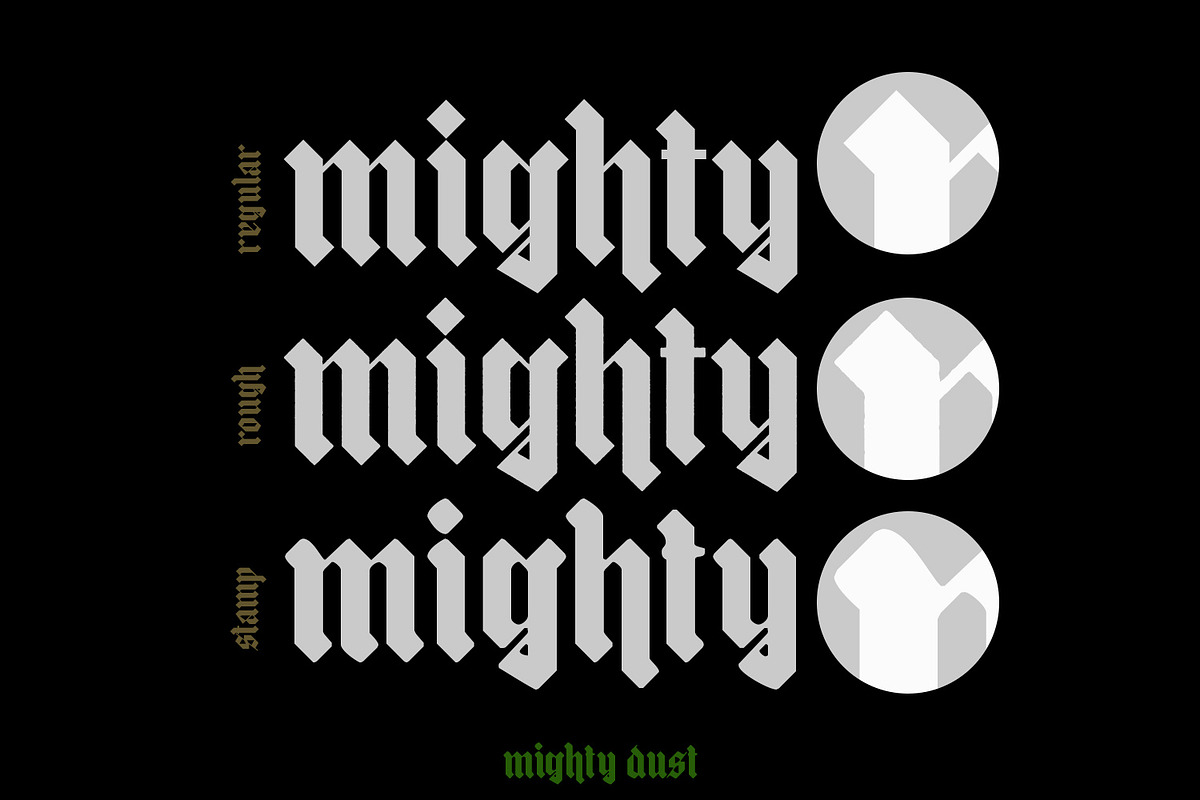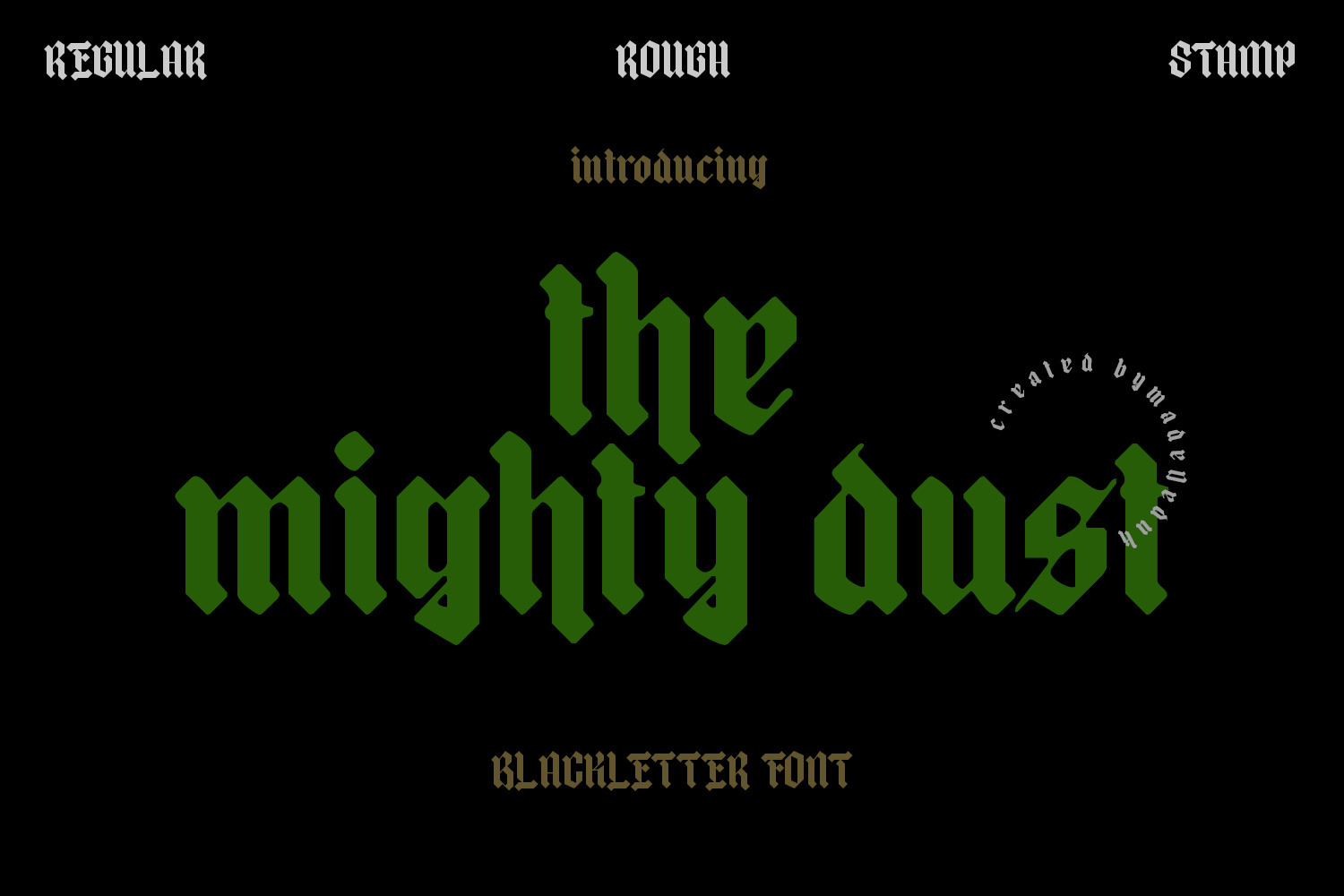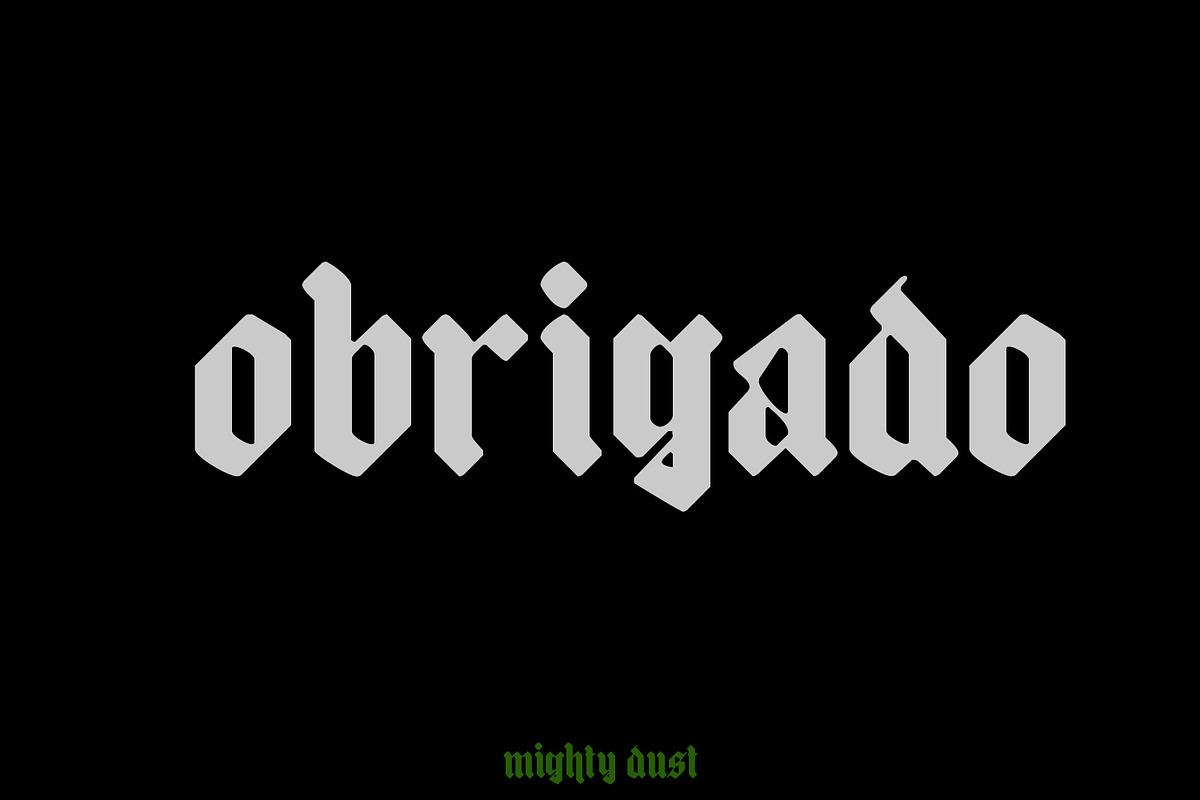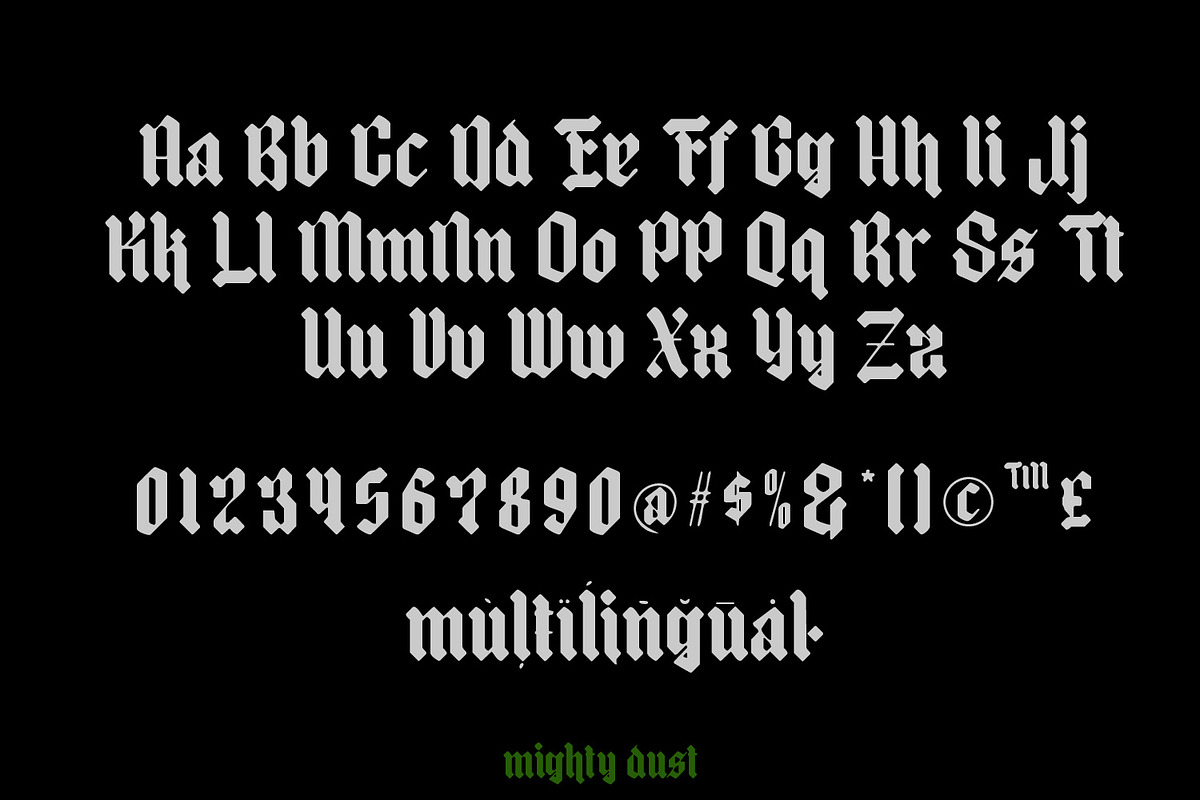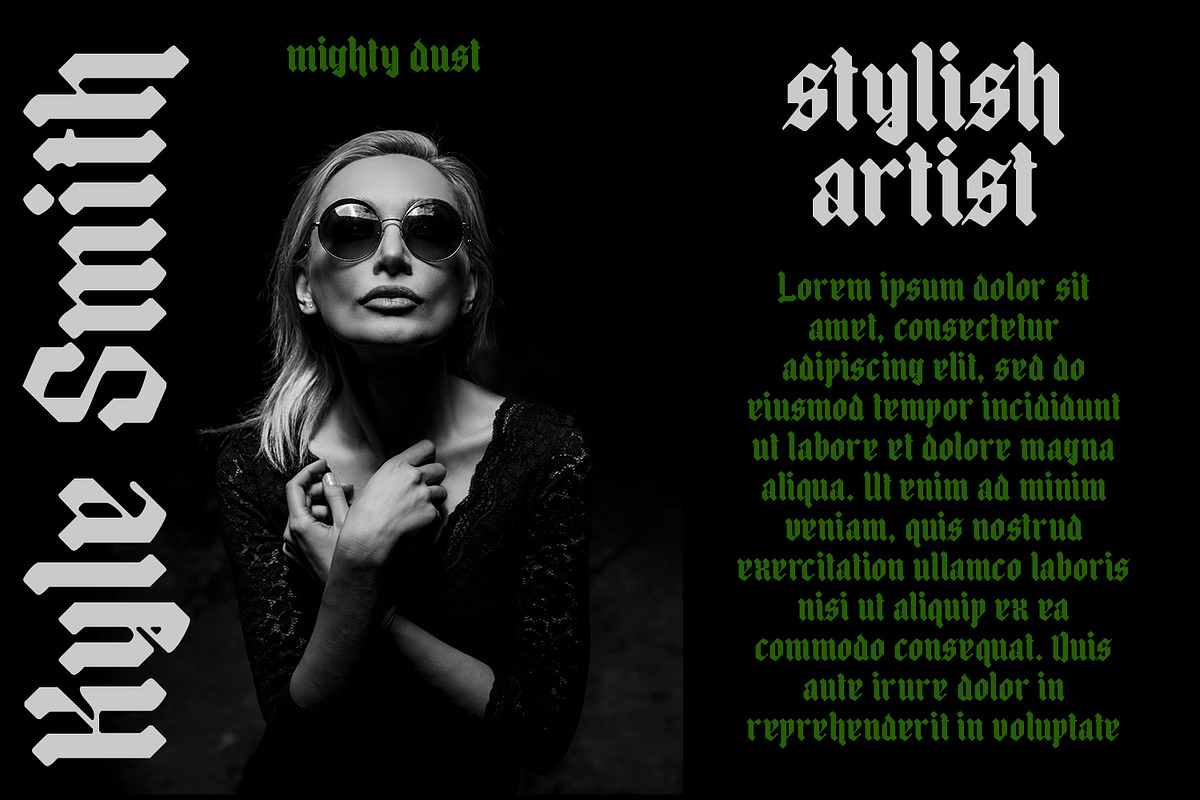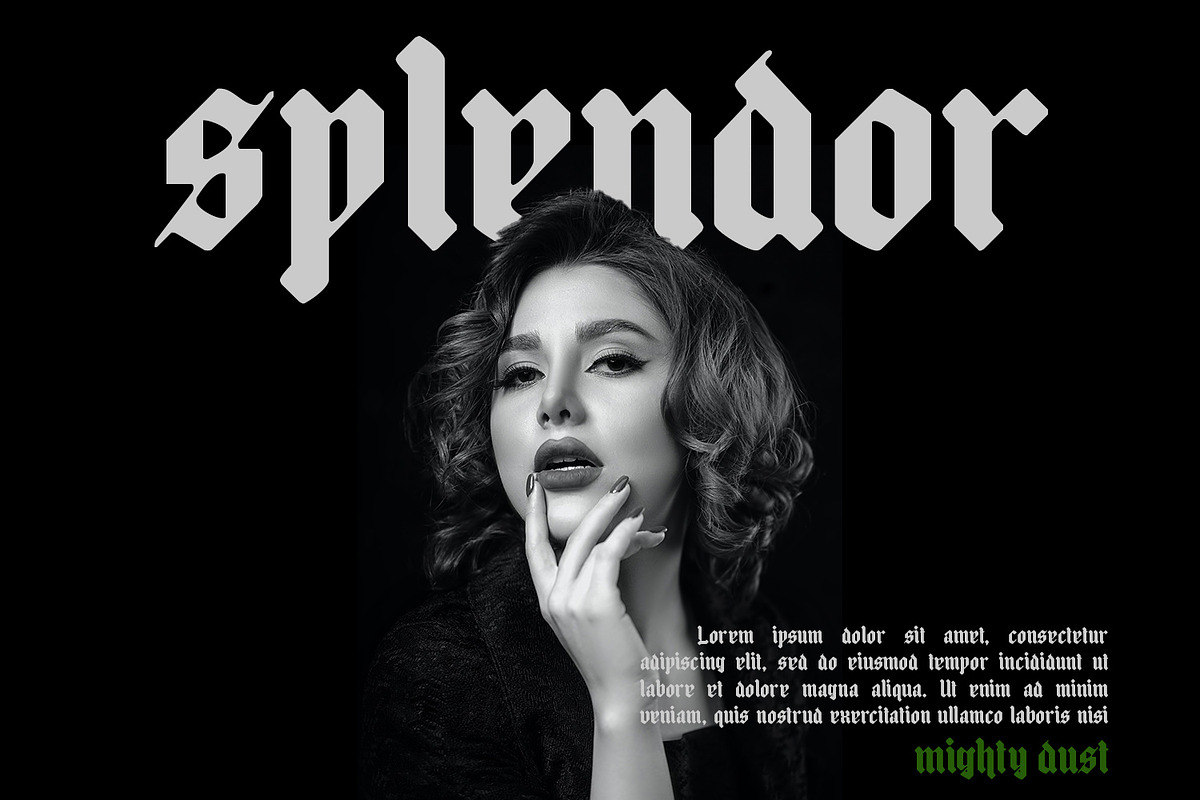
mighty dust - blackletter font
mighty dust is a blackletter. There's come with 3 style font with much alternative inside. Suitable to create any branding, product packaging, invitation, quotes, t-shirt, label, poster, logo etc.